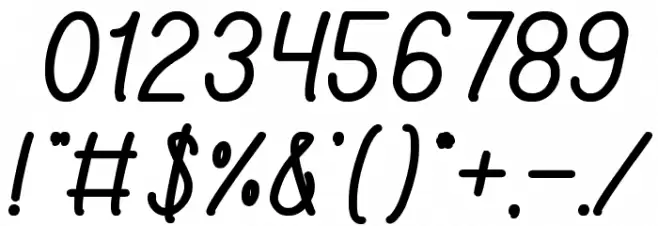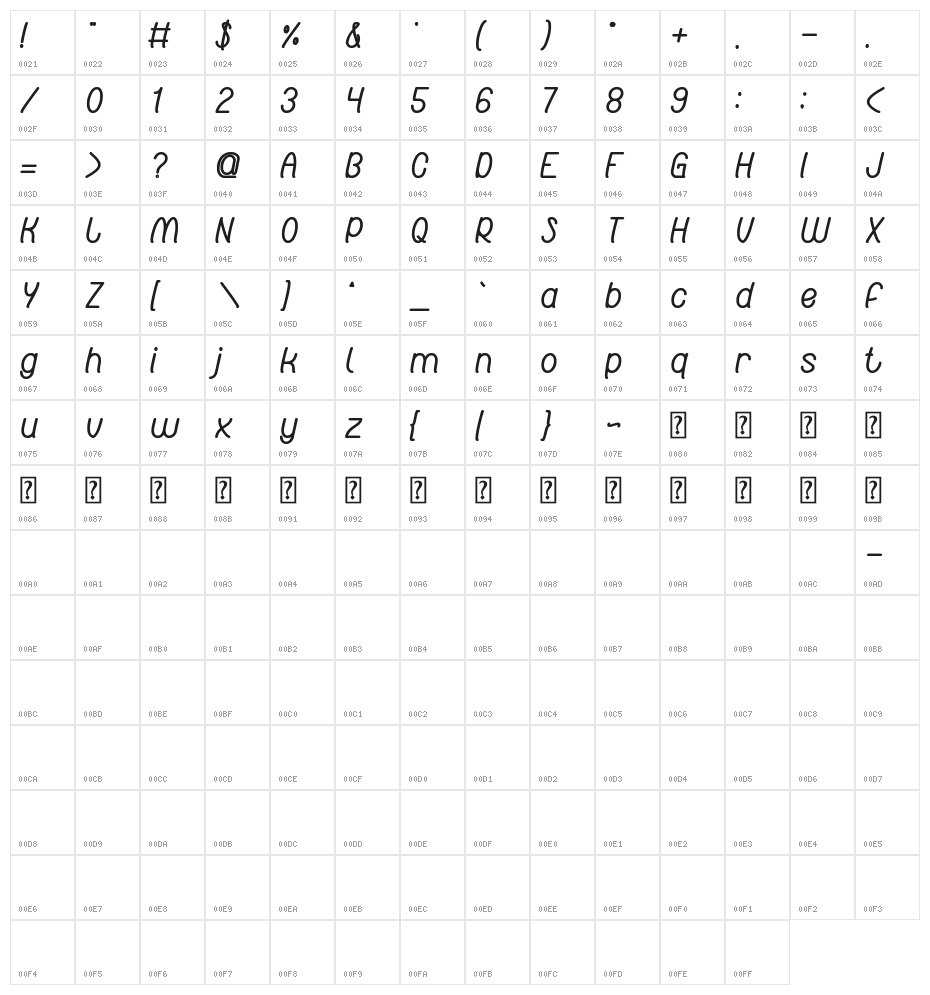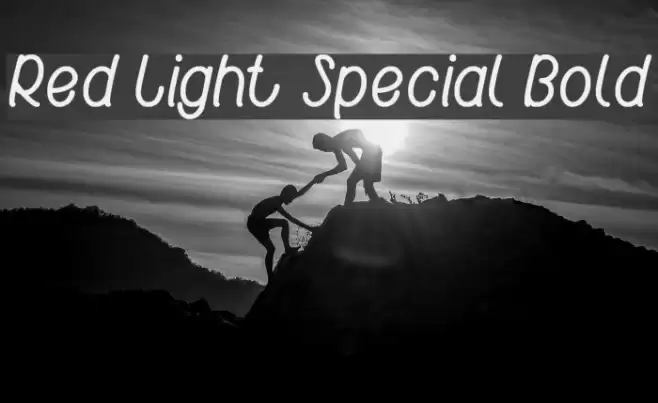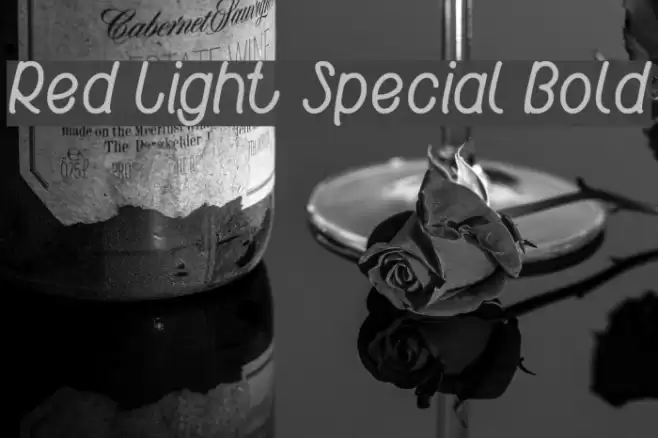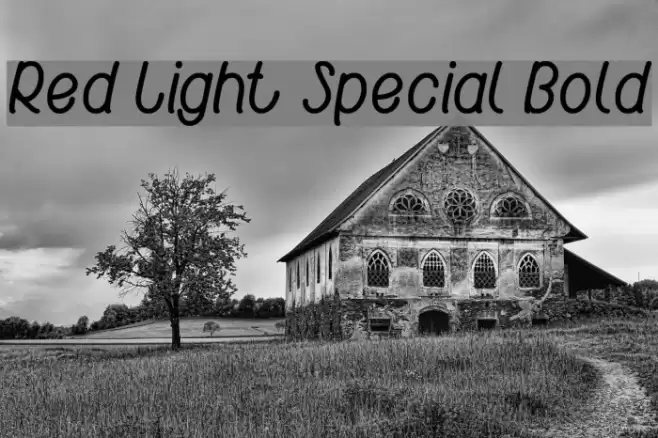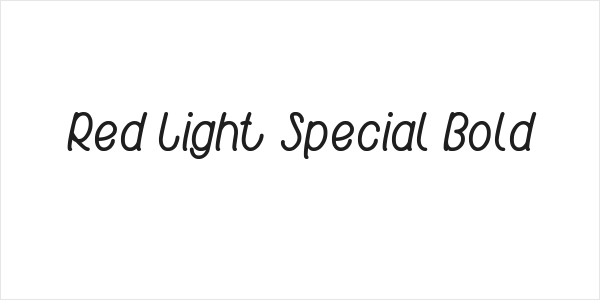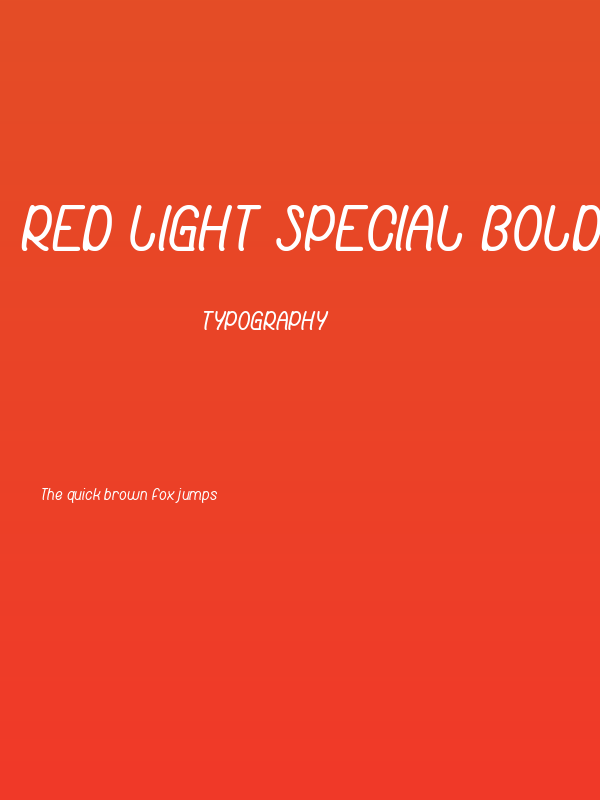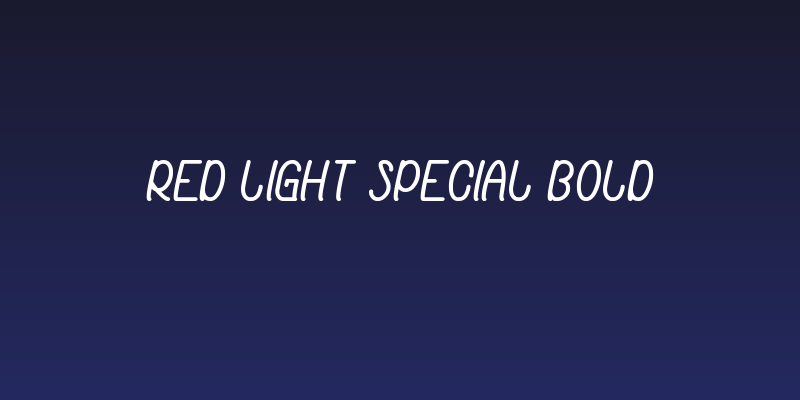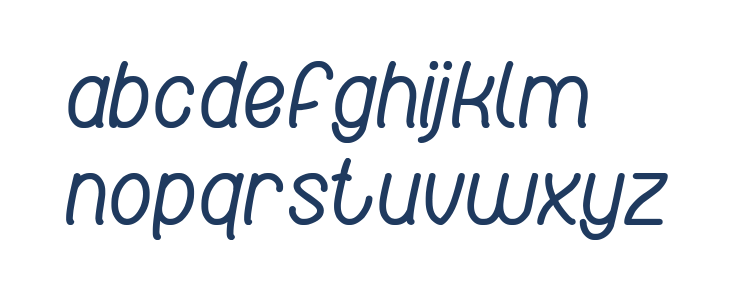
Red Light Special Bold Font
Red Light Special Bold Description
This font features a playful and rounded script style, characterized by its smooth, flowing curves and consistent stroke width. The letters are slightly slanted, giving it a casual and friendly appearance. The uppercase letters maintain a uniform height, while the lowercase letters exhibit a gentle, looping structure. Numbers and special characters are designed to match the overall aesthetic, ensuring a cohesive look across all elements. The font's design is both approachable and versatile, making it suitable for a variety of creative applications.
| Proposed Projects | Ideal for greeting cards, children's books, playful branding, and casual invitations. |